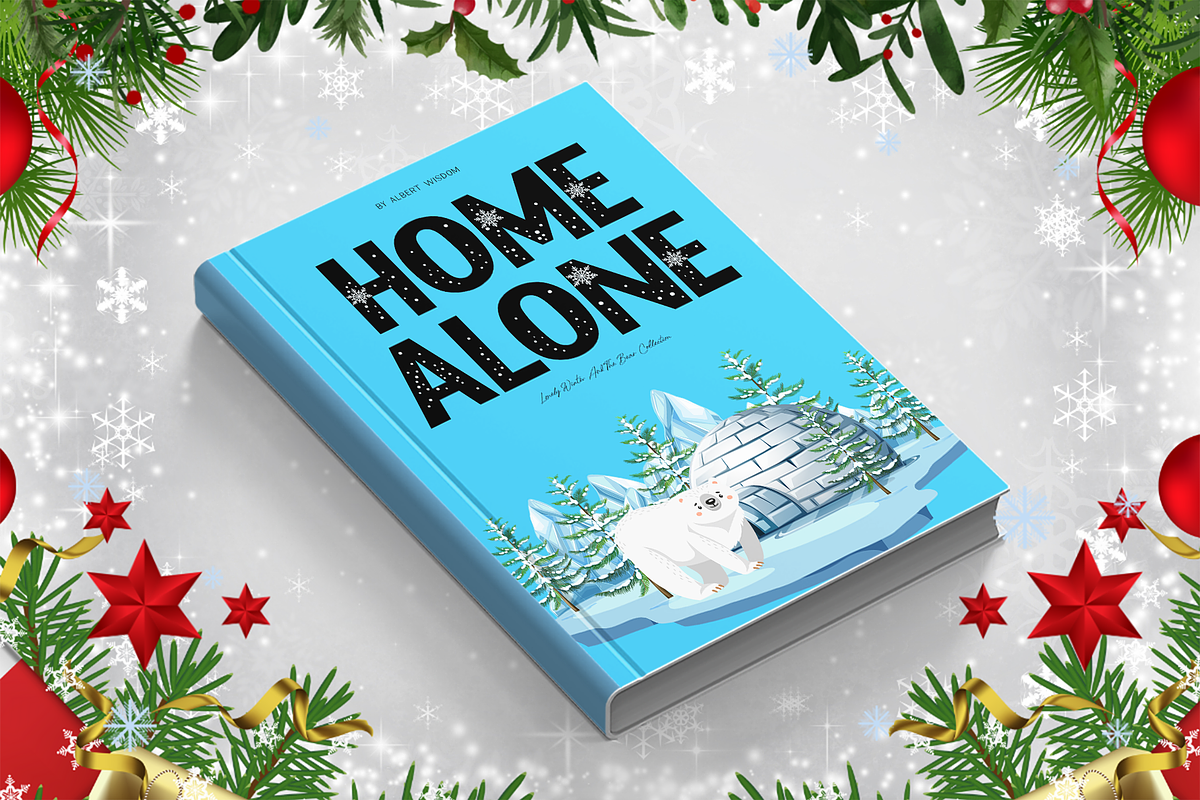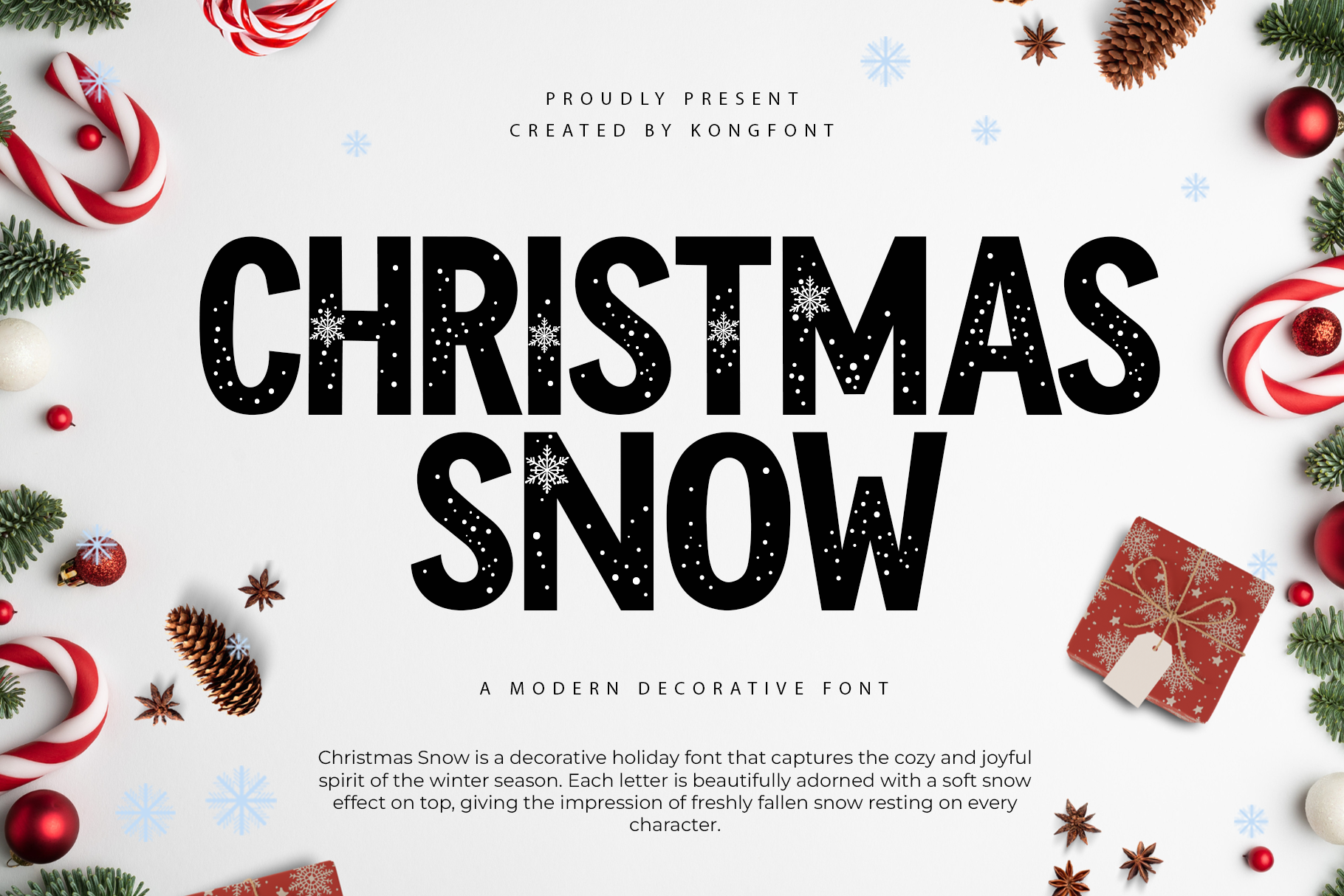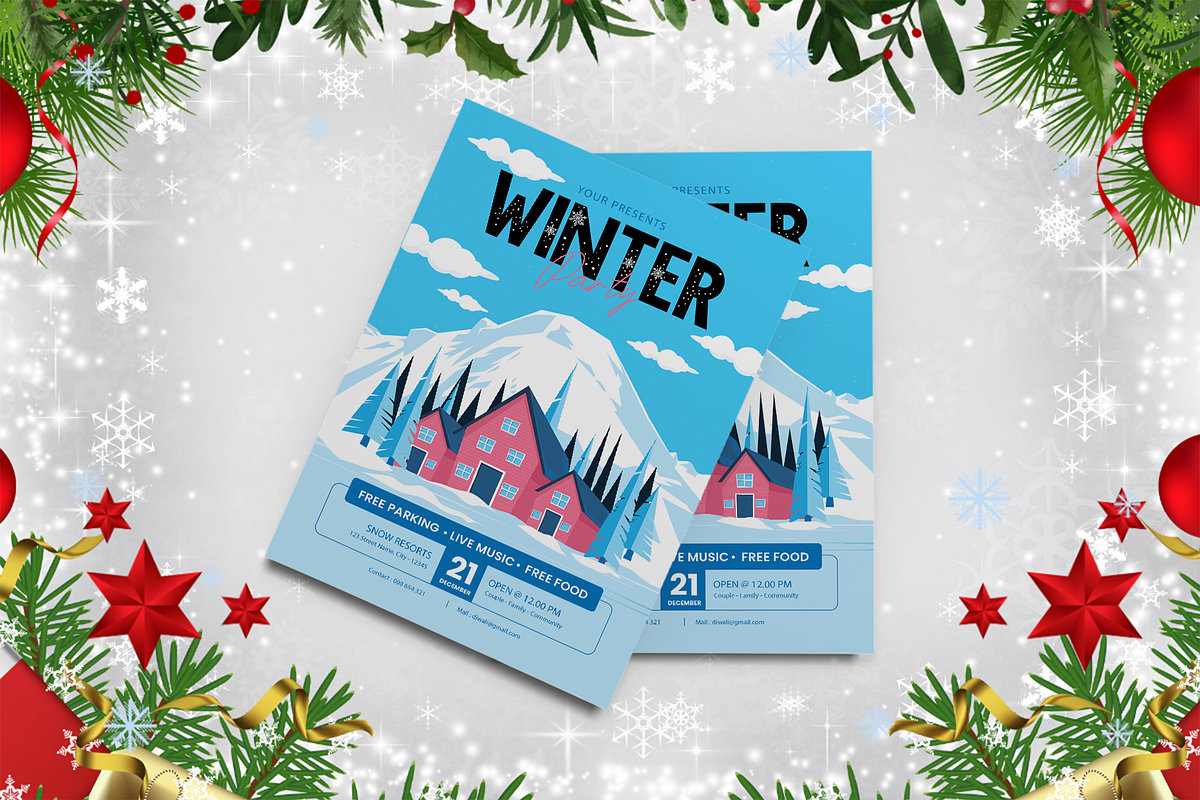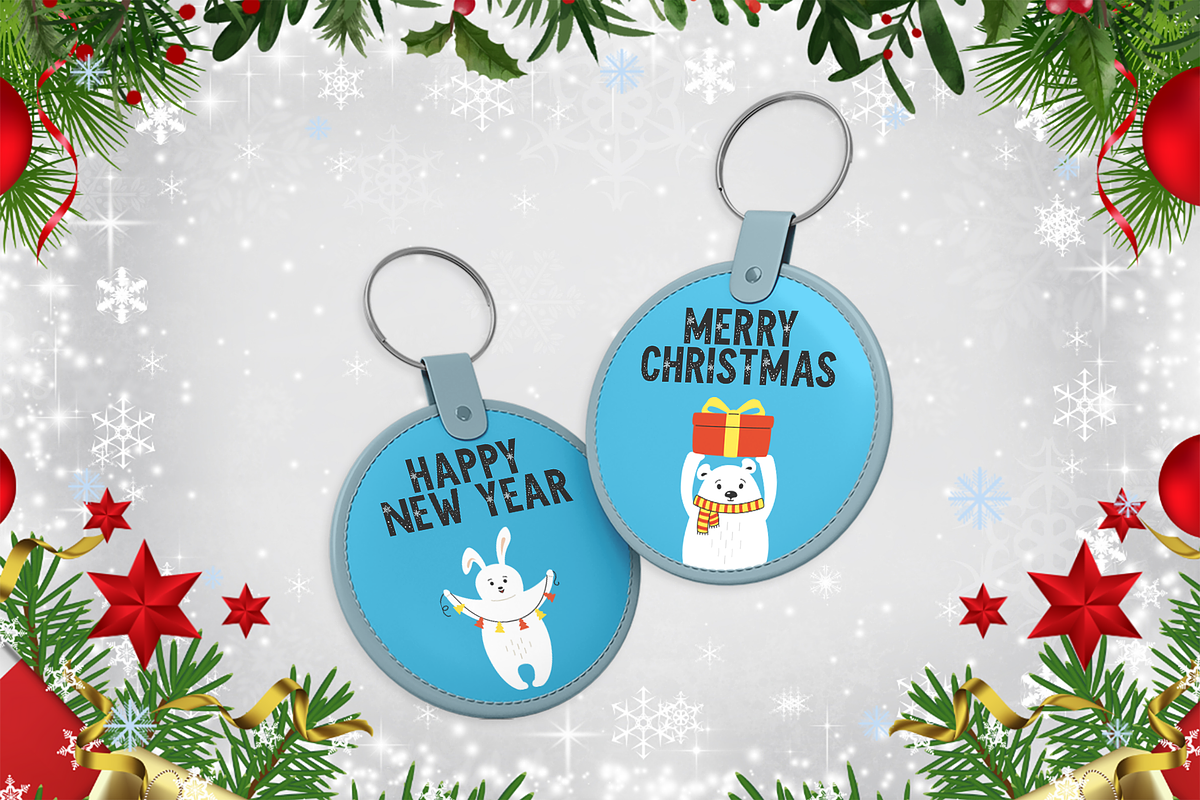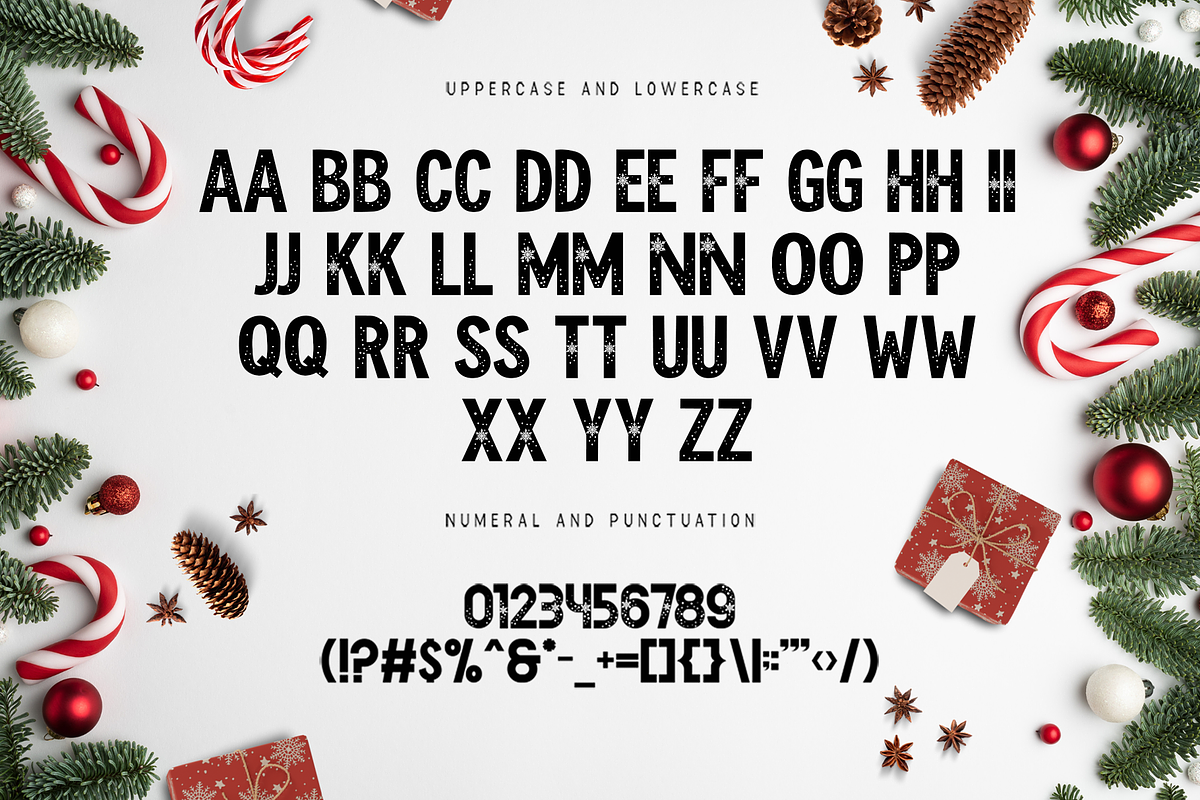
Christmas Snow – Modern Decorative Font
Introducing Christmas Snow, a modern decorative font inspired by the beauty and wonder of the holiday season. With its frosty details and festive charm, this typeface perfectly captures the essence of wintertime joy and Christmas celebration.
Christmas Snow is designed for creatives who want to add a touch of whimsy and elegance to their designs. Ideal for greeting cards, invitations, posters, packaging, and social media, this font brings a cozy and magical atmosphere to every project. Its decorative strokes and smooth flow make it both eye-catching and heartwarming.
Let Christmas Snow transform your holiday designs into something truly enchanting where every letter sparkles with the spirit of Christmas.